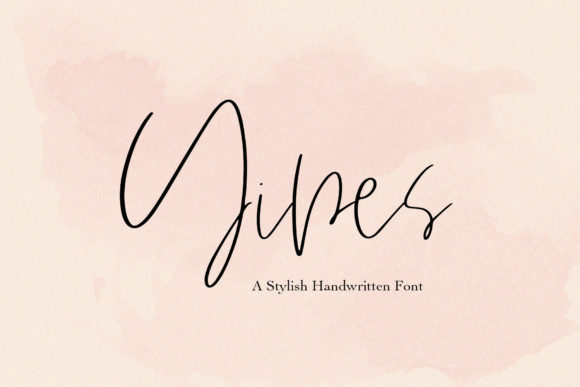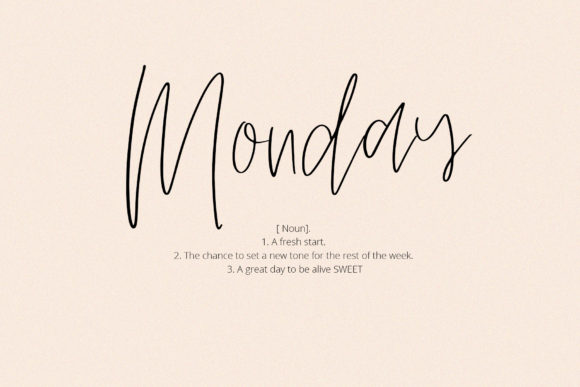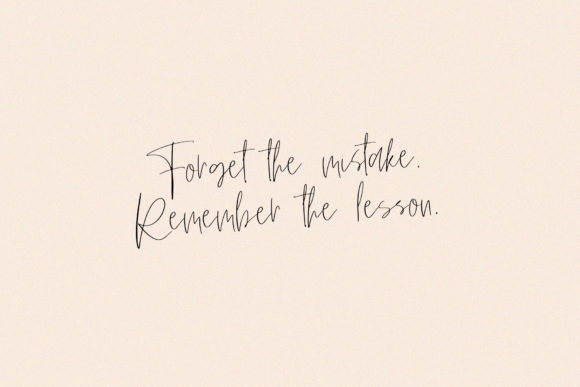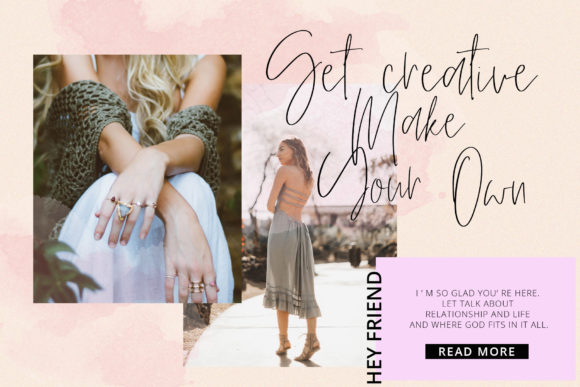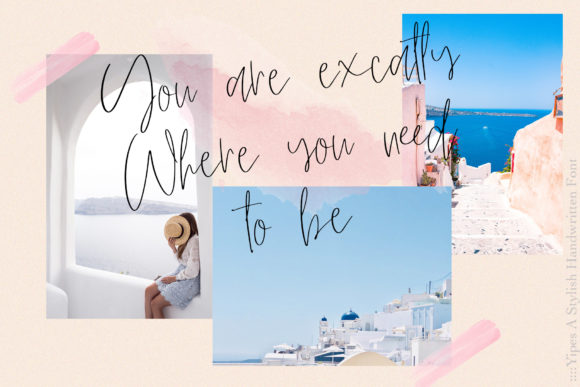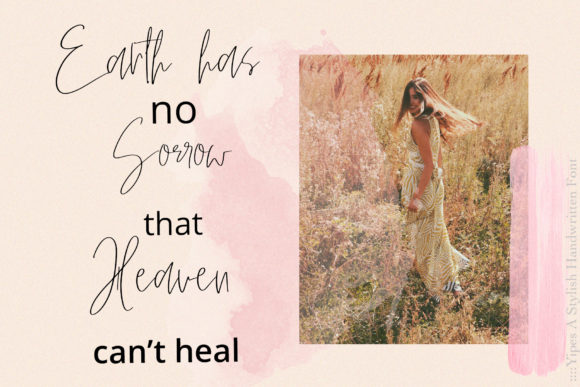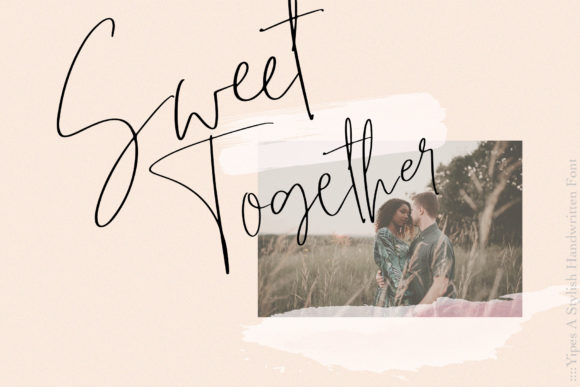
Yipes Font
About Yipes Font
Yipes is a stylish and cool handwritten font with an amazing feel. Use it to turn any design project into a true stand out.